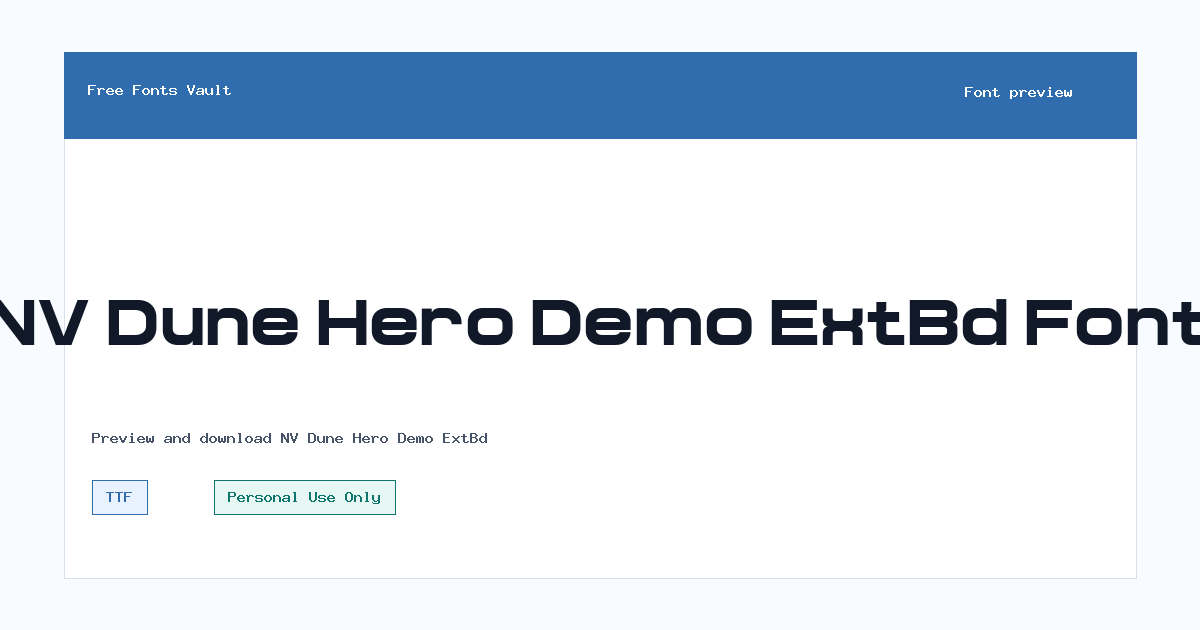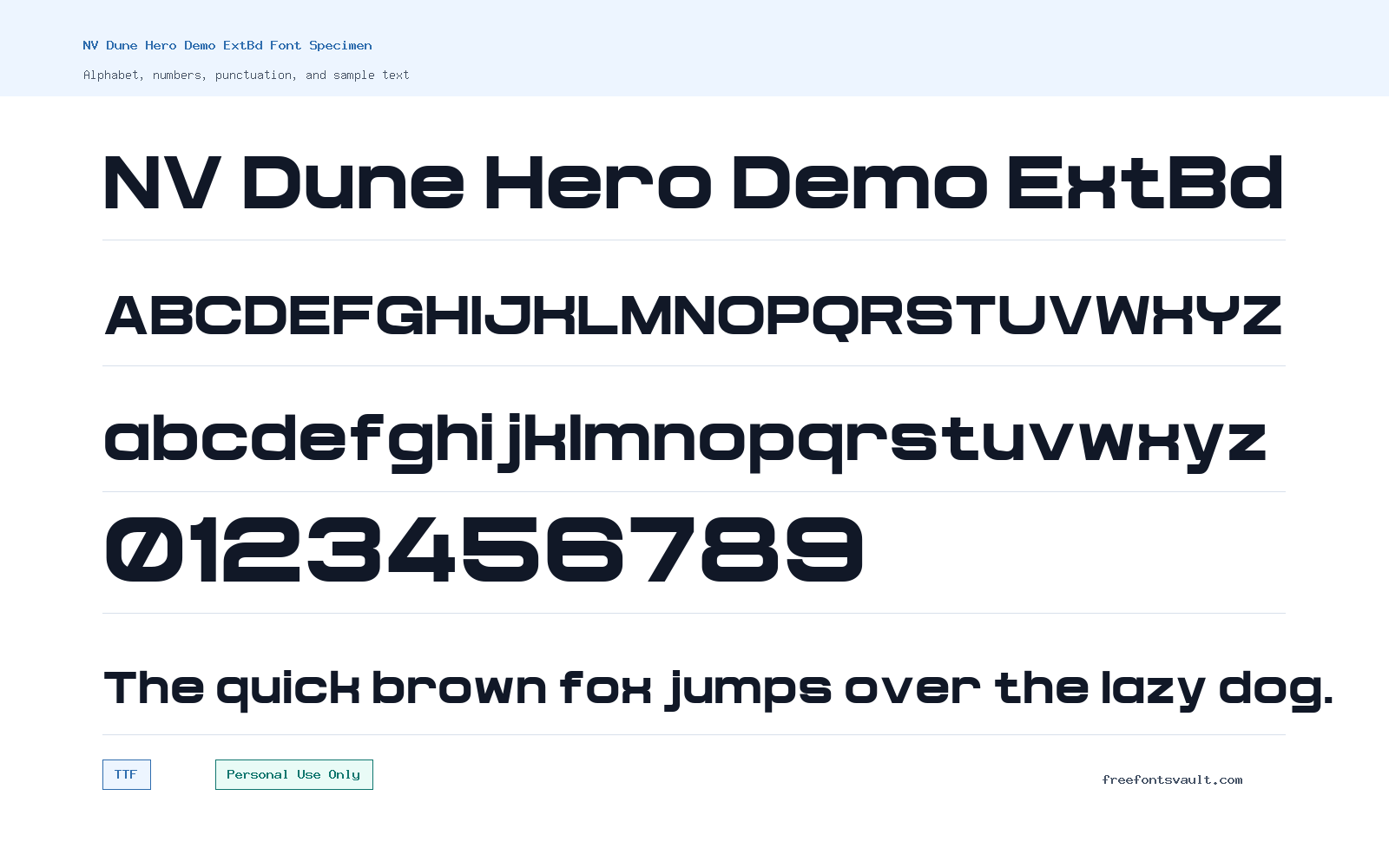
NV Dune Hero Demo ExtBd
NV Dune Hero Demo ExtBd font preview showing the family name
NV Dune Hero Demo ExtBd font specimen showing alphabet, numbers, and sample text
NV Dune Hero Demo ExtBd is a strong display font with an ExtraBold weight, made for short text that needs a heavy, confident look. It comes as a TTF font file and is marked for personal use only, so it is best suited for testing, private projects, and non-commercial design drafts.
About NV Dune Hero Demo ExtBd
NV Dune Hero Demo ExtBd has the kind of weight that works best when the words are meant to be seen quickly. The name and file details point to an ExtraBold demo style, so expect it to suit headings, title blocks, poster lines, logo sketches, thumbnails, and other display settings more than long reading text. Use it when you want a firm sans serif voice without relying on decorative effects. Because this is a demo font, it is a good choice for trying the look of the family before deciding whether it fits a larger project.
For the best preview, test the font with the exact words you plan to use. Heavy display fonts can change a lot depending on letter shapes, spacing, and word length. Try it in all caps, title case, and a few short phrases. Check tight spacing for logos, wider spacing for posters, and smaller sizes if you plan to use it in social graphics or web mockups. If the text starts to feel dense, pair it with a quieter sans serif or a readable serif for body copy. Let NV Dune Hero Demo ExtBd handle the main headline while the companion font carries descriptions, menus, captions, or paragraphs.
• ExtraBold display weight suited to headlines, logo drafts, posters, and short high-impact text.
• Normal style with a 700 weight value, useful for testing bold title layouts.
• Sans serif family naming in the license text, making it a practical fit for clean display compositions.
• Logo concepts and wordmark sketches where a bold sans serif look is needed.
• Poster headlines, event graphics, cover titles, and large-format display text.
• Website hero mockups, landing page headers, and app interface concept screens.
• YouTube thumbnails, social media title cards, and personal branding experiments.
• Typography tests where you want to compare bold headline options before choosing a final font.
NV Dune Hero Demo ExtBd is credited to NovaraType as the designer and foundry.
Use this font mainly for short text. Start with headlines, names, initials, labels, and compact phrases rather than paragraphs. In logo work, check the spacing between problem pairs such as A/V, T/o, L/y, and letters with diagonals or wide shapes. For posters, give the font enough room so the bold weight does not crowd the layout. For web mockups, treat it as a display face and pair it with a simpler font for navigation, article text, descriptions, and small UI labels. Since the license is personal use only, keep commercial layouts as drafts until licensing is cleared.
What kind of font is NV Dune Hero Demo ExtBd?
It is a bold demo font in TTF format. The license text identifies it as part of a sans serif font family, and the file name indicates an ExtraBold style.
What is this font best used for?
It is best for short display text such as logos, posters, covers, hero titles, thumbnails, and design mockups. It is not the best choice for long paragraphs.
How should I pair this font?
Pair it with a calm, readable text font. Let NV Dune Hero Demo ExtBd carry the headline or logo-style text, then use a simpler serif or sans serif for body copy and smaller details.